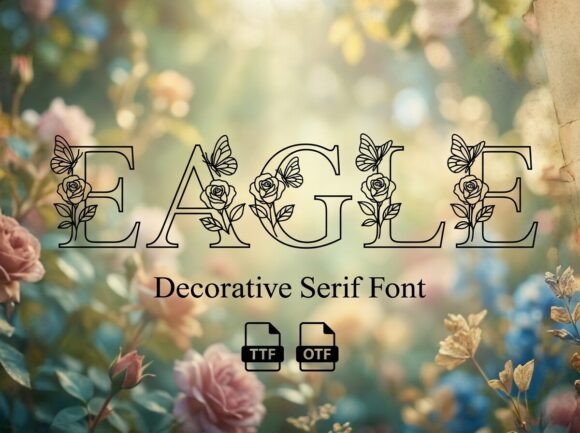
Take Flight with Elegance: Introducing Eagle Font
Are you looking for a font that exudes elegance, sophistication, and a touch of whimsy? Look no further than Eagle, a majestic display serif font that captures the essence of a “botanical-and-breathtaking” soul. With its unique blend of classic letterforms, hand-drawn rose blooms, and delicate butterfly wings, Eagle is the perfect choice for designers and crafters seeking to add a touch of luxury to their projects.
A Font Like No Other
Eagle Font is a one-of-a-kind typeface that seamlessly integrates traditional serif letterforms with organic, hand-drawn elements. The font features high-contrast serif characters with rhythmic, hand-drawn rose blooms and delicate butterfly wings that perch gracefully on the stems of each letter. This innovative design creates a sense of movement and fluidity, as if the font itself is taking flight.
Perfect for High-End Branding and Design
With its balanced structural weight and romantic personality, Eagle Font is the premier choice for independent high-end floral branding, wedding stationery design, artisanal beauty packaging, and high-impact social media headers. The font’s elegant, refined aesthetic makes it perfect for designers and crafters seeking to create luxurious, high-end designs that stand out from the crowd.
Key Features of Eagle Font
- Classic, high-contrast serif letterforms: Eagle Font features traditional serif characters with a modern twist, perfect for creating elegant and sophisticated designs.
- Hand-drawn rose blooms and delicate butterfly wings: The font’s unique organic elements add a touch of whimsy and romance to any design.
- Balanced structural weight: Eagle Font’s balanced weight makes it perfect for use in a variety of design applications, from headings and titles to packaging and branding.
- Romantic personality: The font’s elegant, refined aesthetic makes it perfect for designers and crafters seeking to create luxurious, high-end designs.
Design Applications for Eagle Font
Eagle Font is versatile and can be used in a variety of design applications, including:
- Independent high-end floral branding: Use Eagle Font to create elegant and sophisticated branding for your floral business.
- Wedding stationery design: Add a touch of luxury to your wedding stationery with Eagle Font’s elegant, refined aesthetic.
- Artisanal beauty packaging: Use Eagle Font to create beautiful, high-end packaging for your artisanal beauty products.
- High-impact social media headers: Make a statement with Eagle Font’s bold, elegant design.
Why Choose Eagle Font?
With so many fonts to choose from, why choose Eagle Font? Here are just a few reasons why Eagle Font stands out from the crowd:
- Unique and elegant design: Eagle Font’s innovative design makes it perfect for designers and crafters seeking to create luxurious, high-end designs.
- Versatile: The font can be used in a variety of design applications, from branding and packaging to wedding stationery and social media headers.
- High-quality: Eagle Font is a high-quality font designed with attention to detail, ensuring that your designs look professional and polished.
In conclusion, Eagle Font is a majestic display serif font that captures the essence of a “botanical-and-breathtaking” soul. With its unique blend of classic letterforms, hand-drawn rose blooms, and delicate butterfly wings, Eagle Font is the perfect choice for designers and crafters seeking to add a touch of luxury to their projects. Whether you’re creating high-end floral branding, wedding stationery, artisanal beauty packaging, or high-impact social media headers, Eagle Font is the premier choice for elegant, refined designs.